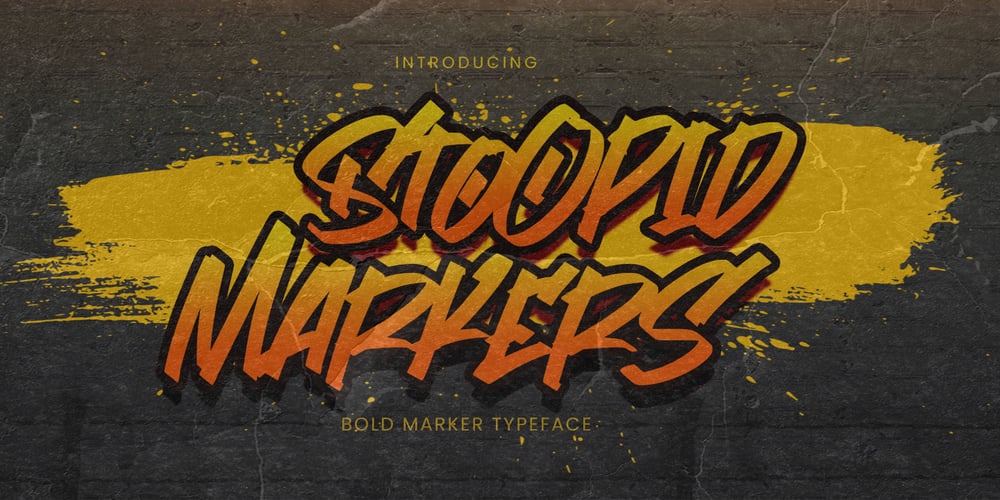
Stoopid Markers
Stoopid Markers font
Stoopid Markers Font Family was designed by Abdul Malik Wisnu, Anang Fibriyanto and published by Gassstype. Stoopid Markers contains 1 styles and family package options. Here comes a New font, Stoopid Markers is a Bold Market Typeface that is written casually and quickly.these strong Letters are made with Market Typeface on Procreate. Then crafted carefully drawn into a vector format.That is why Stoopid Markers has a charming, authentic, and relaxed characteristic more natural look to your text with a more natural look to your text.